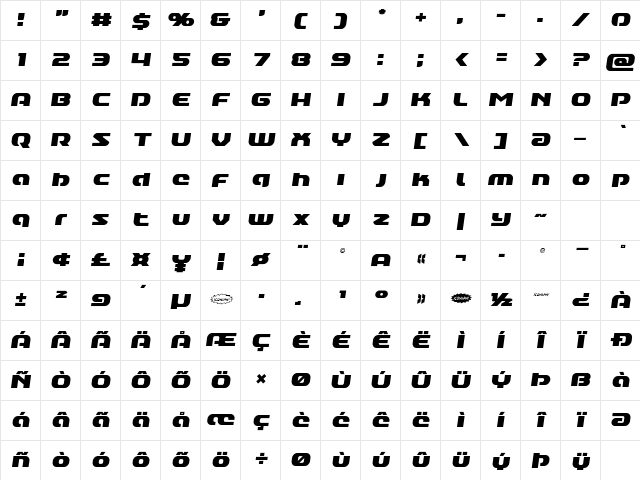
Complete Annapolis Lower Case Semi-Italic glyph index. Displaying only characters natively supported by Annapolis Lower Case Semi-Italic font.
Annapolis Lower Case is a composed and adaptable typeface that performs quietly and consistently across a wide range of design contexts. The slanted form adds forward momentum and visual energy.
Pro Tip: Use Annapolis Lower Case for emphasis, pull quotes, and subheadings where its slanted energy can add rhythm to the layout.